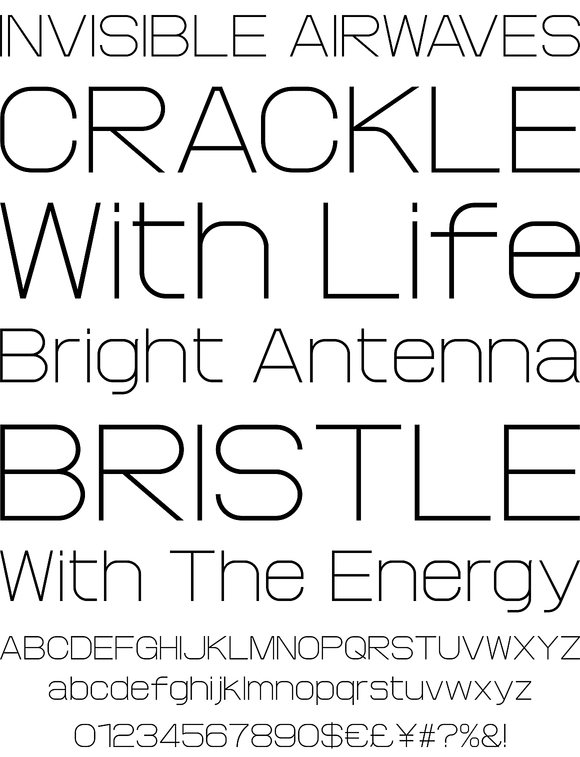
ProtoFet
Foundry: The Northern Block
A precise legible typeface inspired by the classic font EuroStile. The idea was to produce a functional text based font that would demonstrate technical interest at a variety of sizes. The typeface is ideal for use on print, web, motion, t-shirts and apparel. Details include complete characters set, manual kerning and Euro symbol.